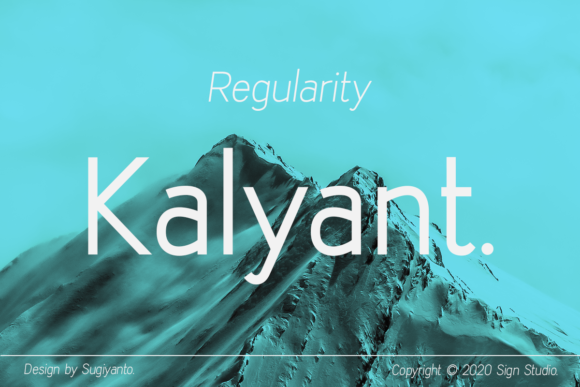
Introducing Kalyant Font, the ultimate font for art enthusiasts and design aficionados alike! Step into a realm of limitless creativity where your artistic visions take flight.
Kalyant Font, a captivating sans serif masterpiece, exudes simplicity and casual elegance. Its meticulously crafted letters dance across your screen, forming harmonious arrangements that elevate any design. Whether you seek to captivate your audience with captivating art magazine covers or infuse your personal projects with a touch of sophistication, Kalyant Font is your perfect companion.
Indulge in the font's versatility, where its clean lines and effortless flow adapt seamlessly to a myriad of design styles. From the bold headlines that command attention to the delicate details that whisper nuance, Kalyant Font effortlessly enhances your creations.
Experience the transformative power of Kalyant Font and watch your designs flourish into works of art. Its understated beauty and timeless appeal make it the perfect choice for those who yearn to express their unique vision with clarity and grace.
Embrace the endless possibilities that await you with Kalyant Font, the font that empowers your creativity and ignites your passion for design. Let your imagination soar and create masterpieces that inspire and captivate.